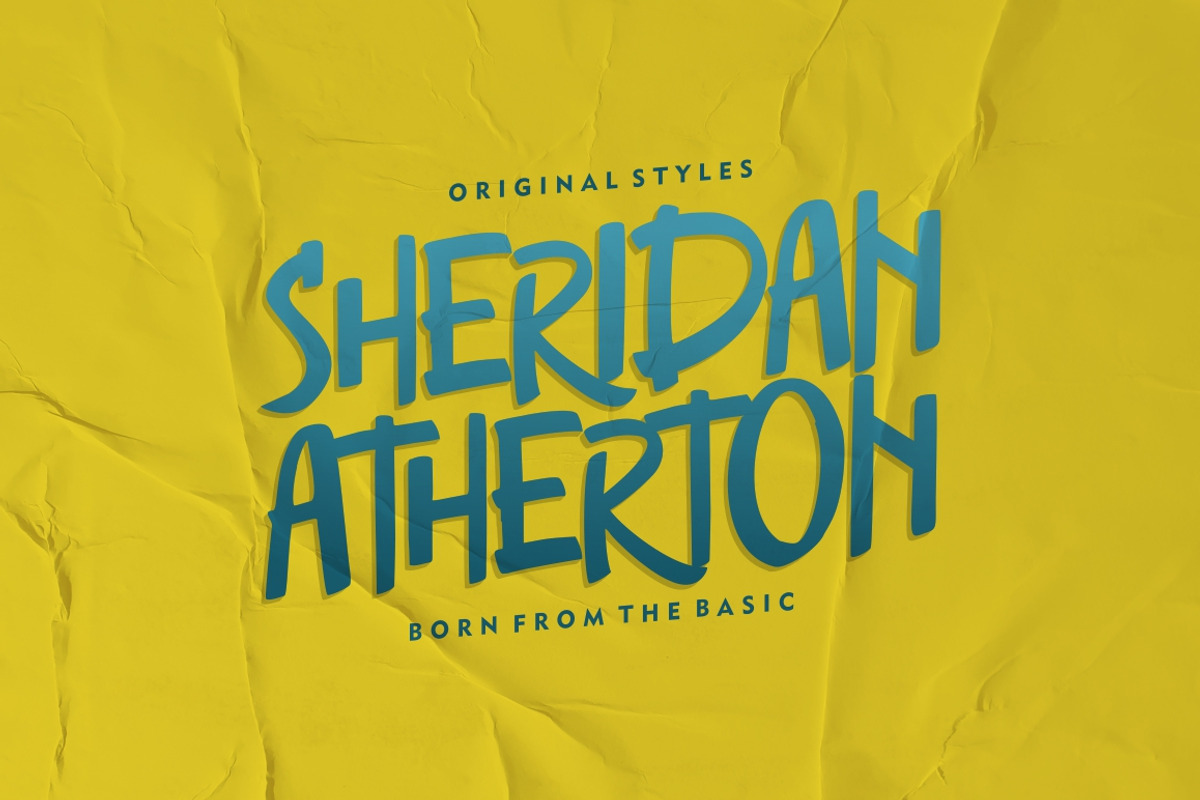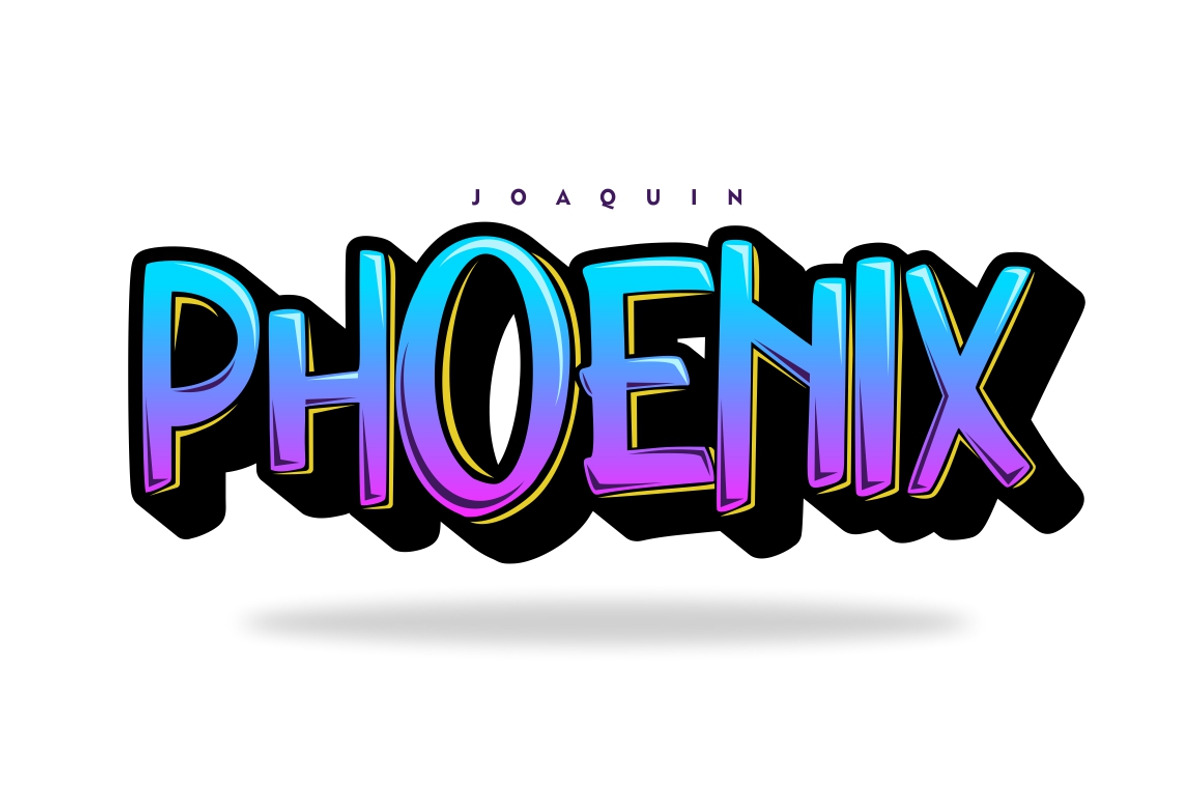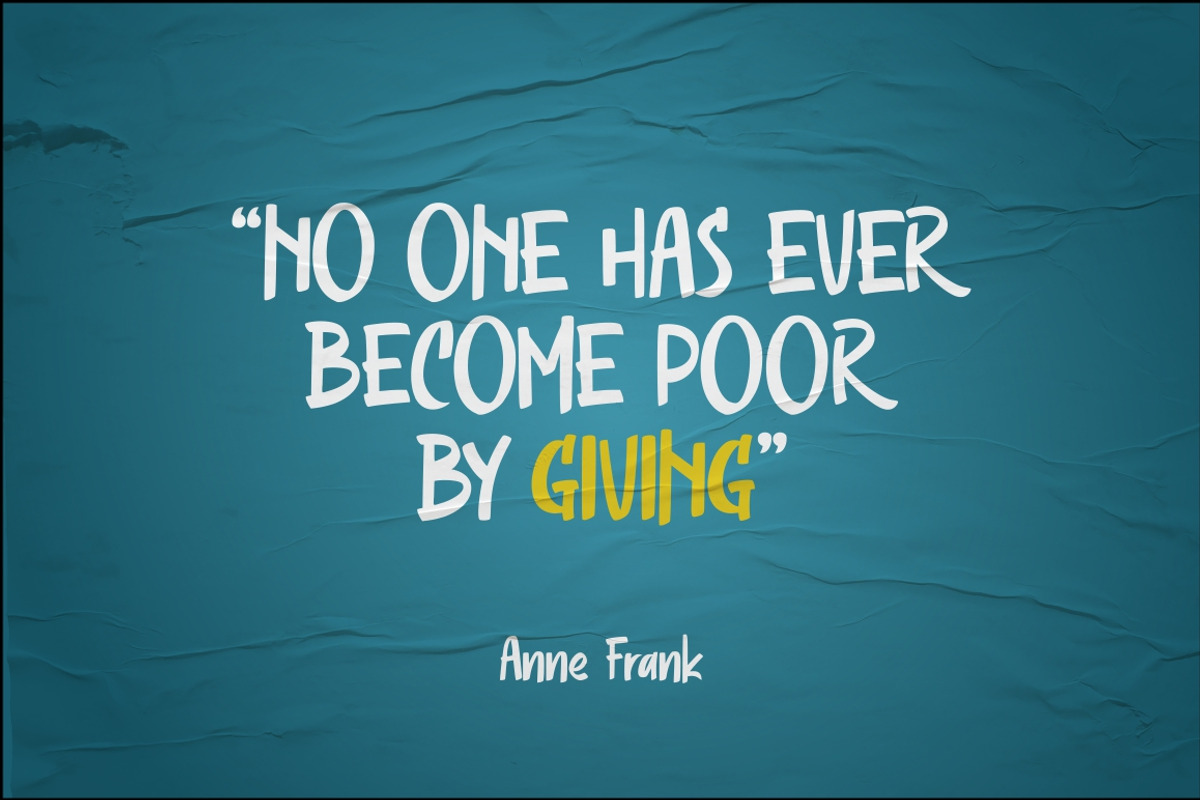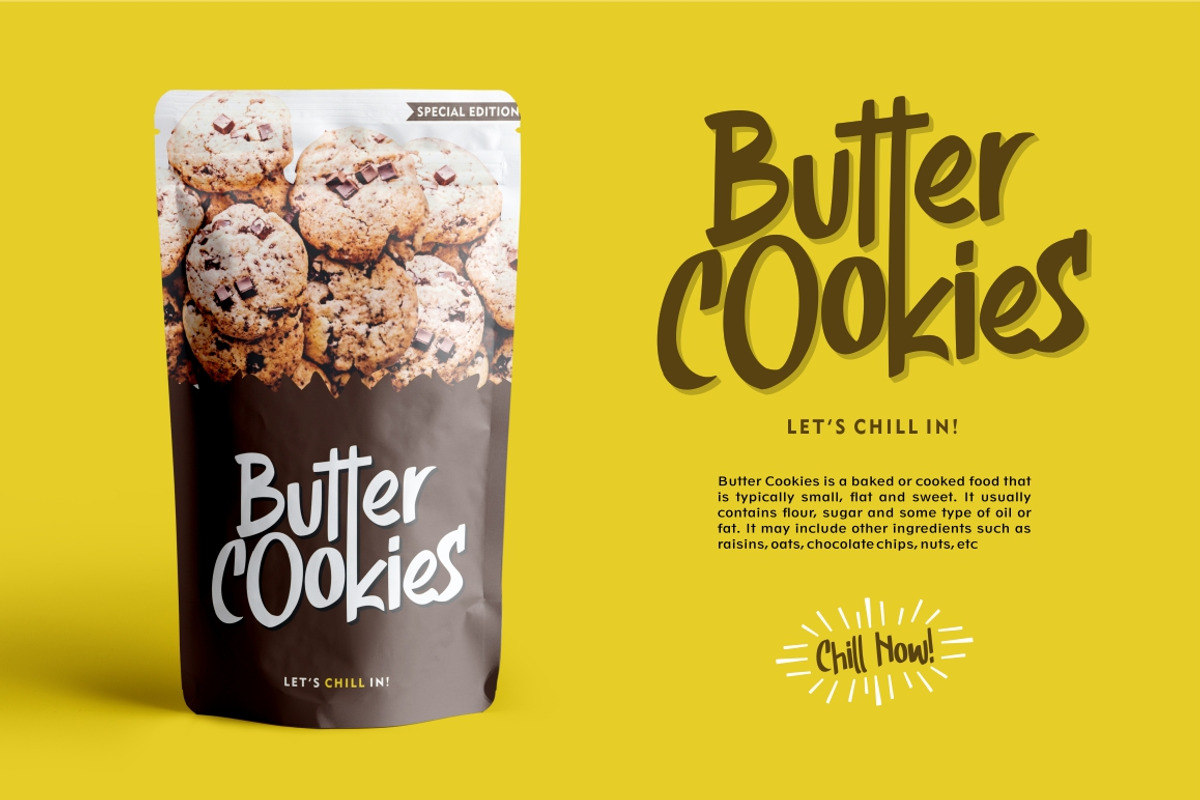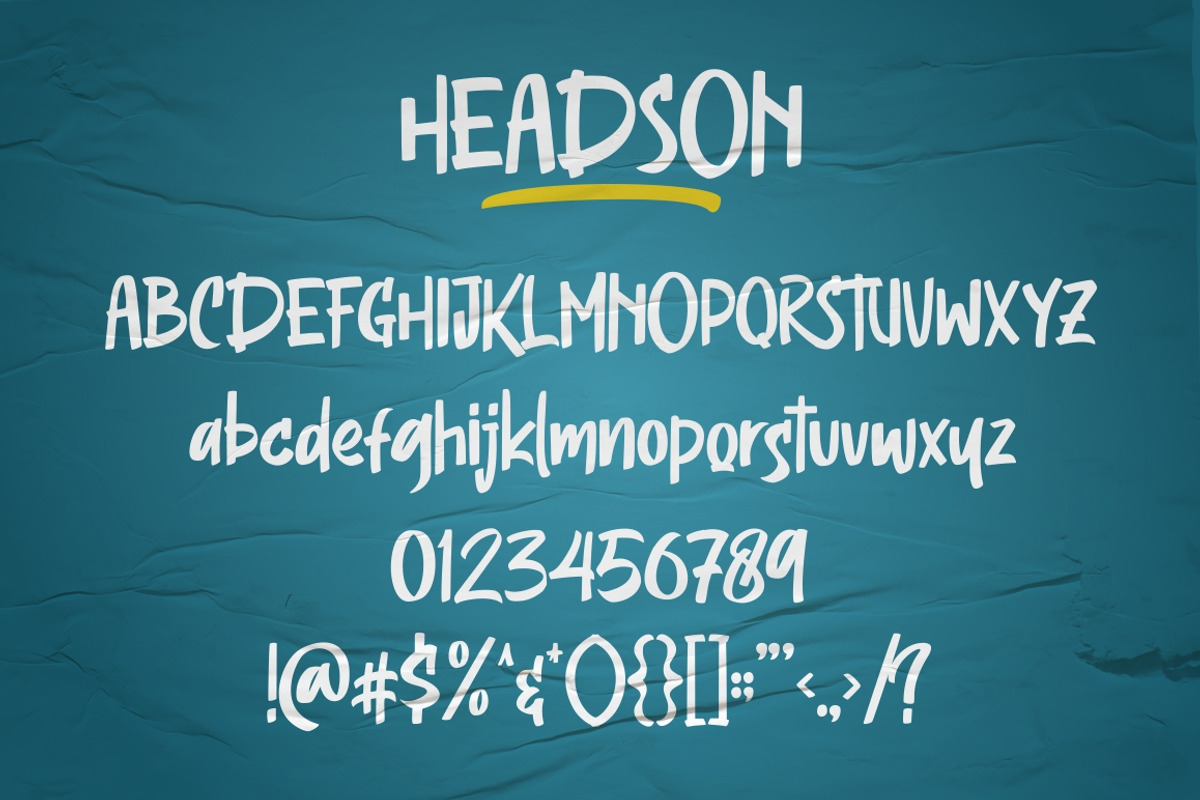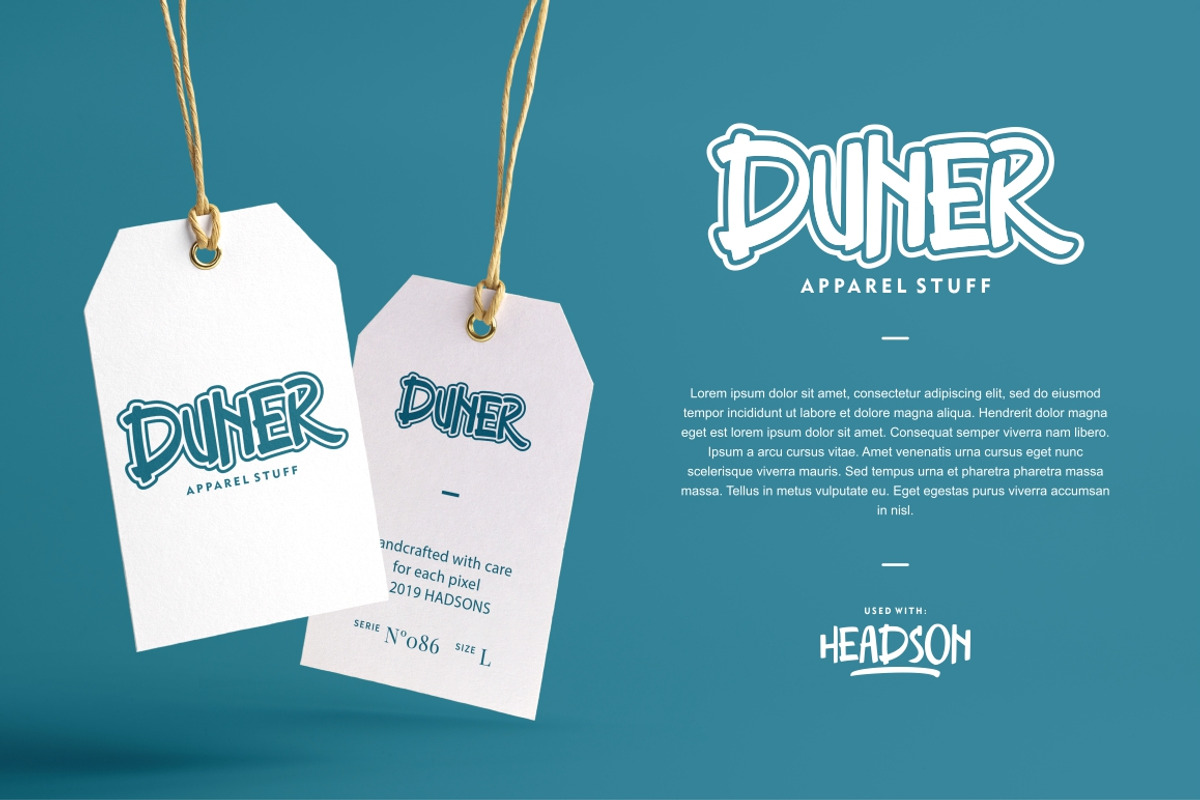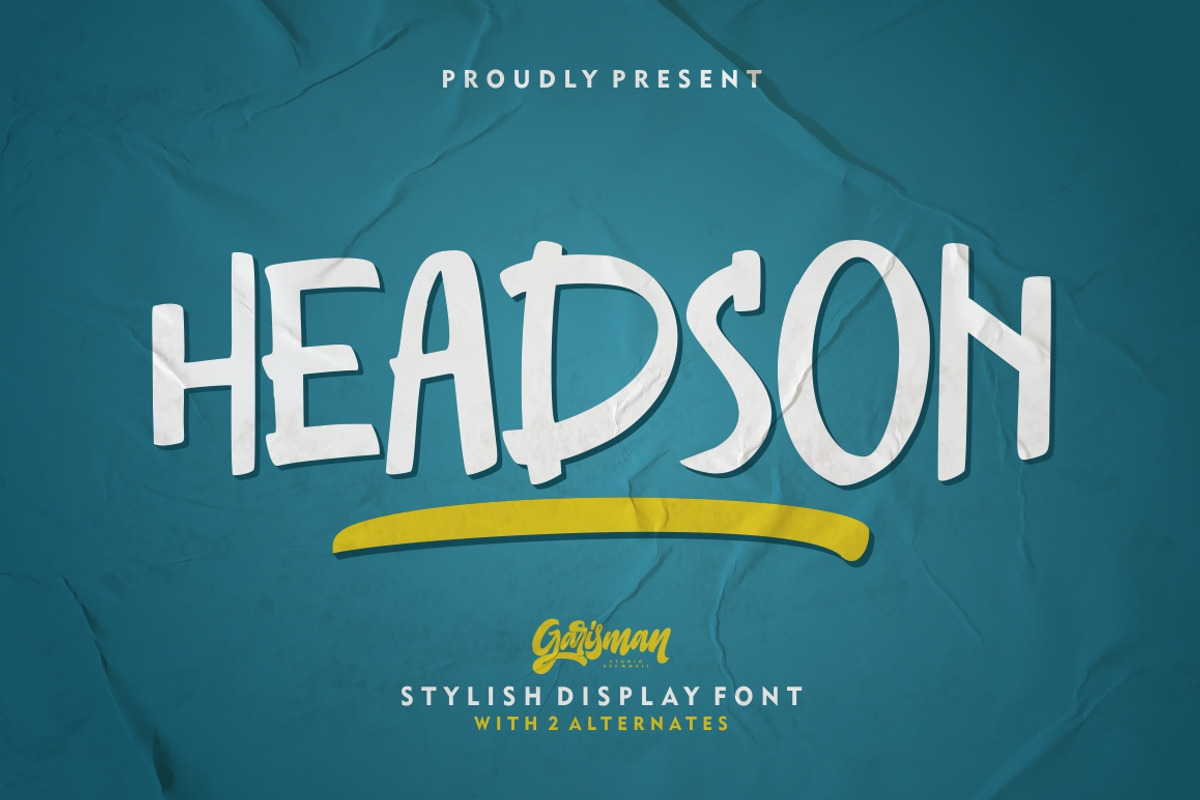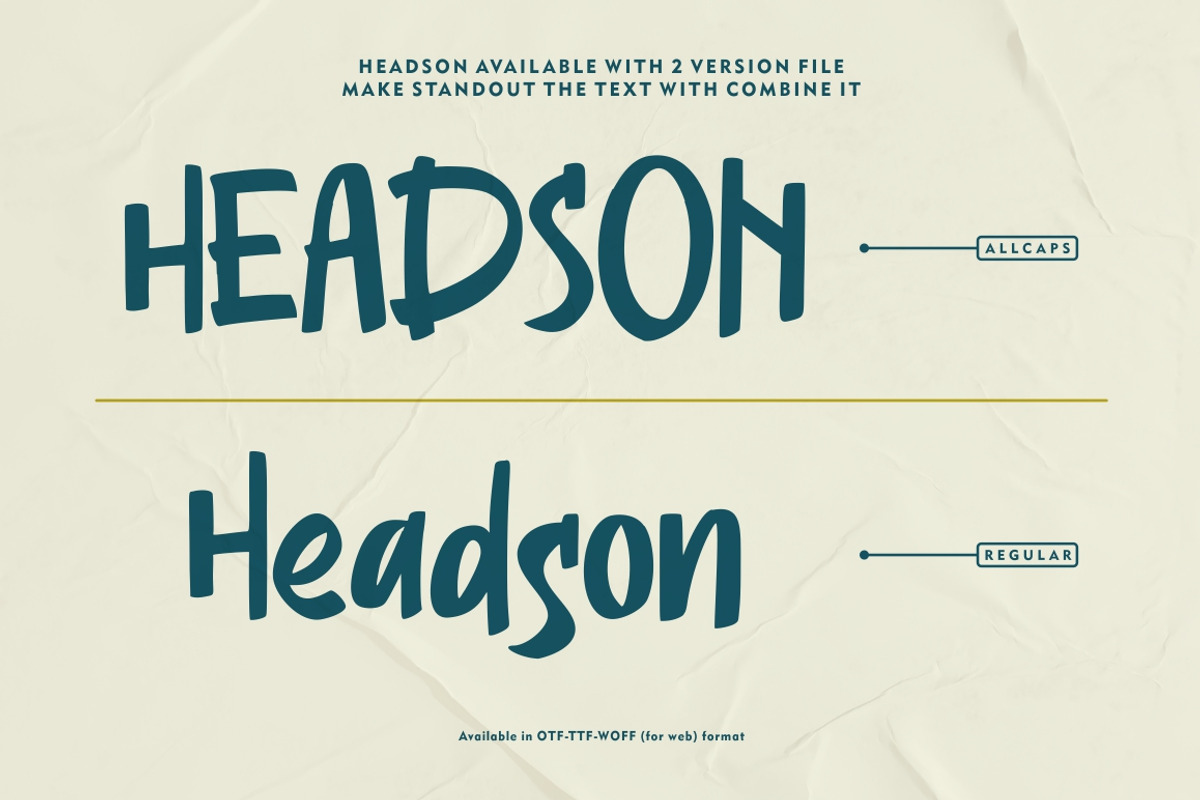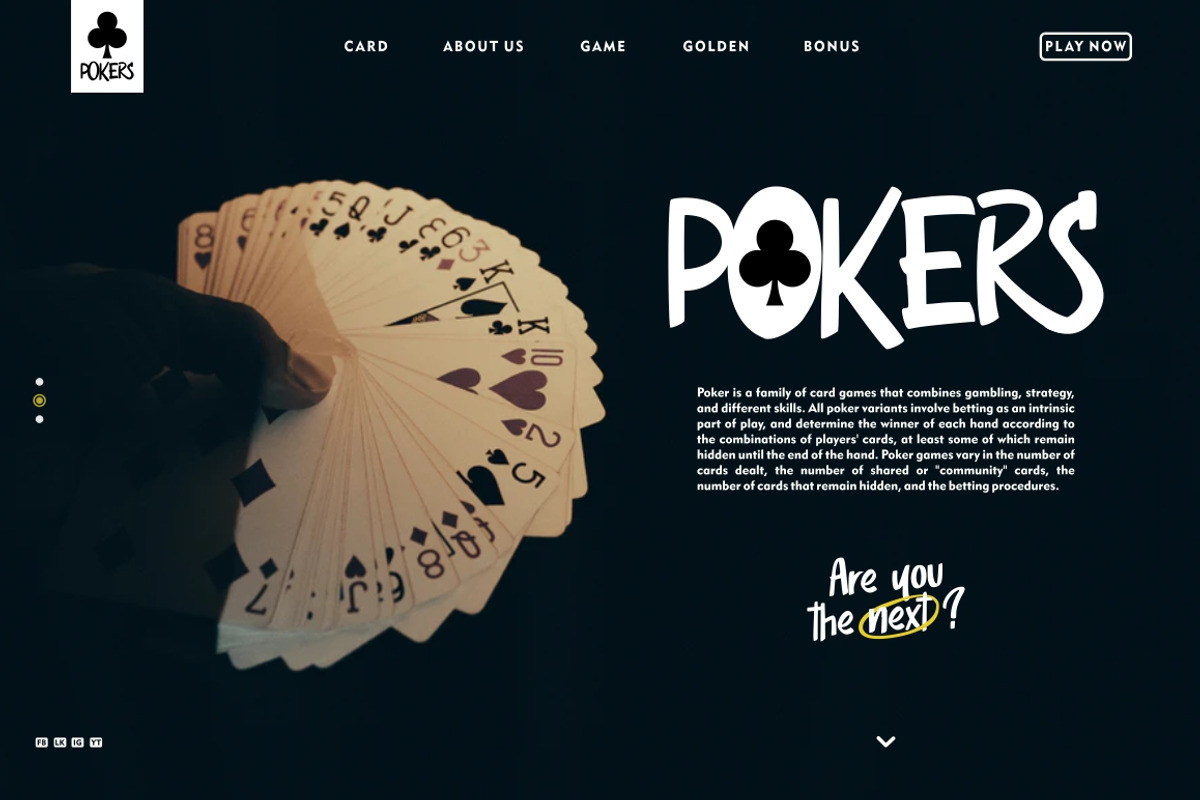
Headson - Display Font
Headson combines attractive curves with a fresh urban edge; delivering a stylish script which is guaranteed to add an eye-catching appeal to your logo designs, brand imagery, quotes, product packaging, merchandise & social media posts
- Multilingual Support Regular & All Caps